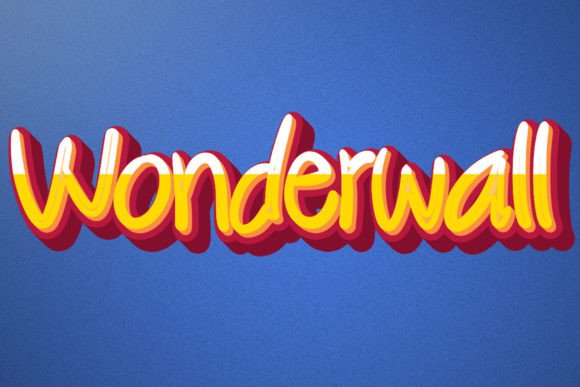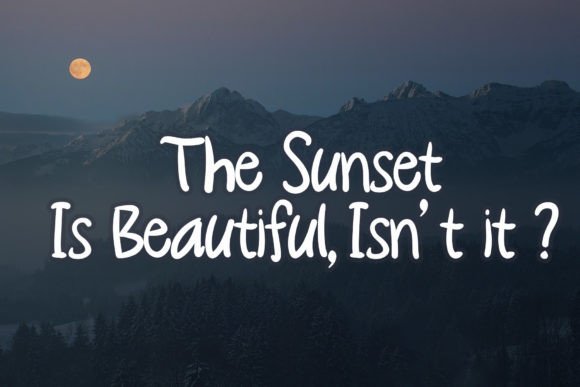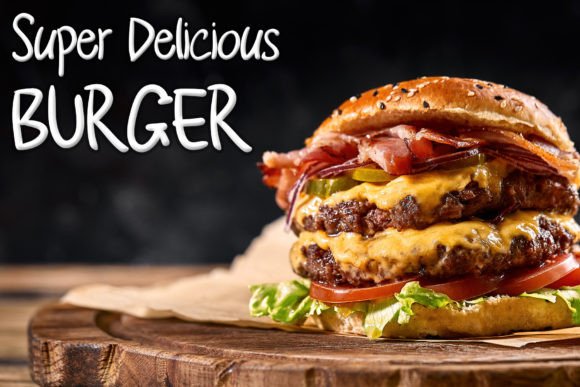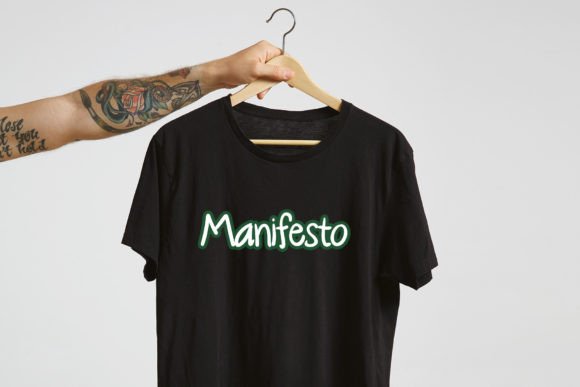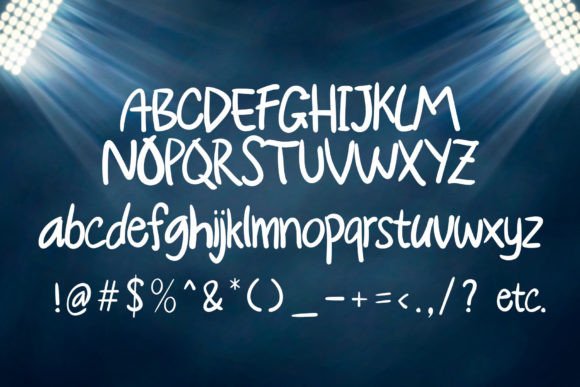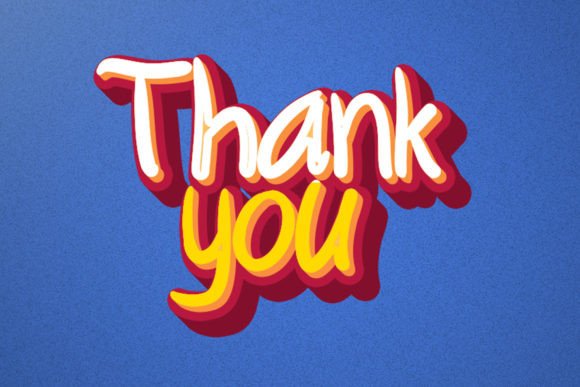
Introduction to Playmaker Font
Have you ever been working on a design project and suddenly, you stumble upon that perfect font that makes everything fall into place? For designers, finding the right font can be a game-changer. It’s the difference between a good design and a great one. And, that’s exactly what the Playmaker Font offers – a unique, high-quality, and versatile display font that can elevate your creative project to new heights.
With its handwritten style, the Playmaker Font is perfect for a wide range of design projects, from branding and headings to invitations and wall art illustrations. Its free download and transparent background make it an invaluable design resource for any creative project.
Whether you’re a seasoned designer or just starting out, the Playmaker Font is a valuable addition to your design toolkit. Its creative potential is limitless, and with its high-quality design, it’s sure to make your projects stand out.
Key Features of Playmaker Font
- High-quality design: The Playmaker Font is a premium font designed to meet the needs of creative projects, offering a high-quality design that is sure to elevate any visual content.
- Large character set: This font includes a large character set, covering a wide range of languages and characters, making it an ideal choice for global creative projects.
- Perfect for creative projects: The Playmaker Font is a versatile design resource that is perfect for a wide range of creative projects, from graphic design and typography to digital art and more.
Honest Review: Playmaker Font
I recently stumbled upon the Playmaker Font and I must say it’s a great addition to any designer’s toolkit. As a design enthusiast, I appreciate high-quality fonts that can elevate my creative projects. The Playmaker Font offers a free download, making it an excellent resource for designers on a budget.
What works well about this font is its clean and modern aesthetic. The transparent background allows for seamless integration with any design. The font itself is highly versatile, making it suitable for a wide range of creative projects, from logos to editorial content.
Here are some of the key features I like about the Playmaker Font:
- High-quality design that exudes professionalism
- Extremely versatile for various creative projects
While the Playmaker Font is excellent, I do have some minor criticisms ⚠️. The font selection is somewhat limited, and I wish there were more options to choose from. Additionally, the font may not be suitable for more formal or traditional projects.
Overall, I’m impressed with the Playmaker Font. It’s a great resource for designers who want a high-quality, free font that can add a touch of modernity to their projects. ✨ With a little creativity, the Playmaker Font can help take your designs to the next level.
To get the most out of Playmaker Font, use it with a transparent background to create a clean and modern look. You can also use it in combination with other design elements to add depth and interest to your creative project.
Playmaker Font is ideal for a variety of design projects, including:
Alternatives to Playmaker Font
Ostrich Sans is a high-quality sans-serif font that’s perfect for creative projects requiring a modern and clean design. It’s a free download and comes with a transparent background, making it ideal for web design and graphic design projects.
When to use: Ostrich Sans is suitable for projects that require a professional and minimalist look, such as business cards, resumes, and websites.
Comparison to Playmaker Font: While both fonts have a modern feel, Ostrich Sans is more geometric and sleek, whereas Playmaker Font has a more playful and rounded appearance.